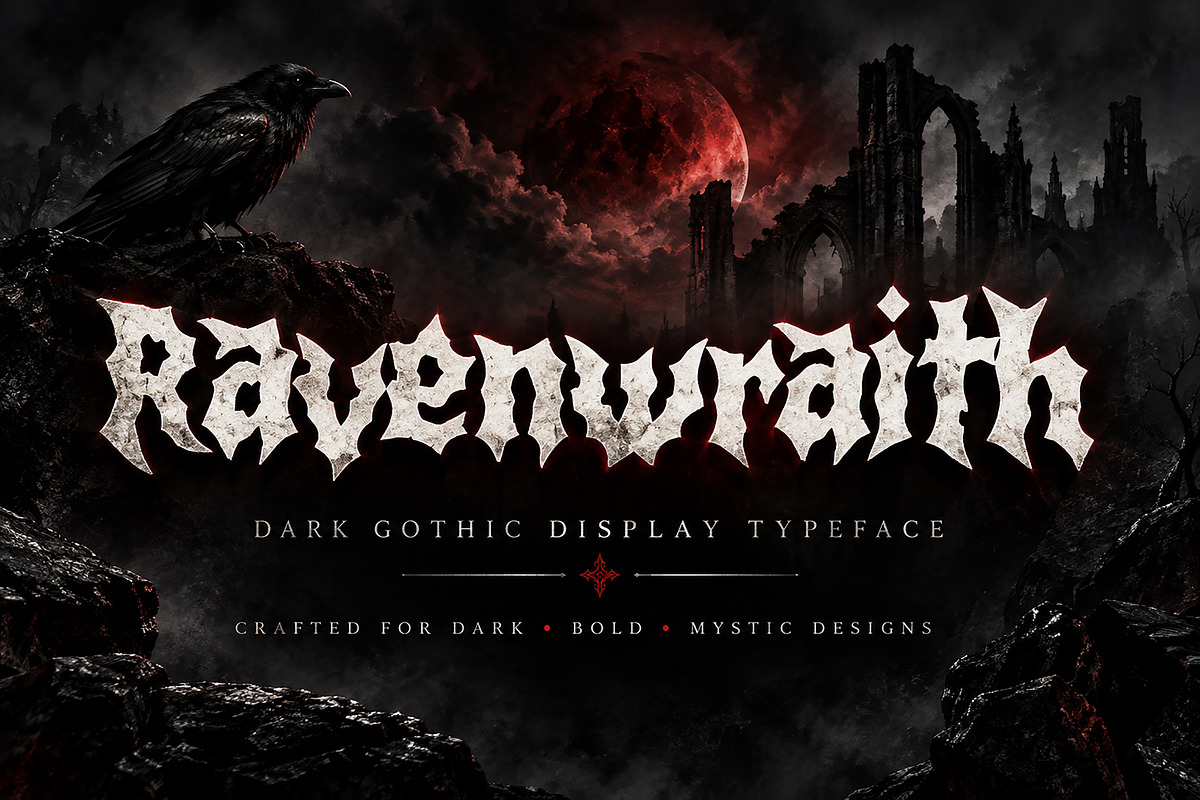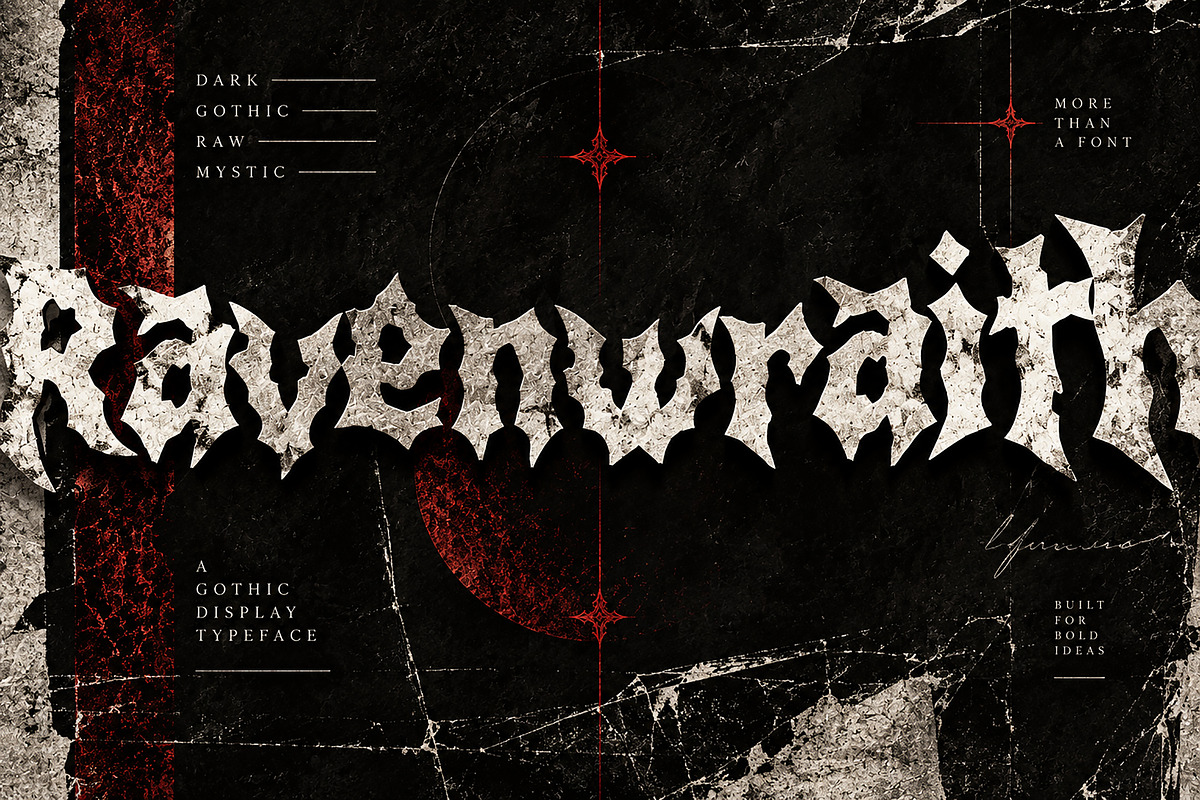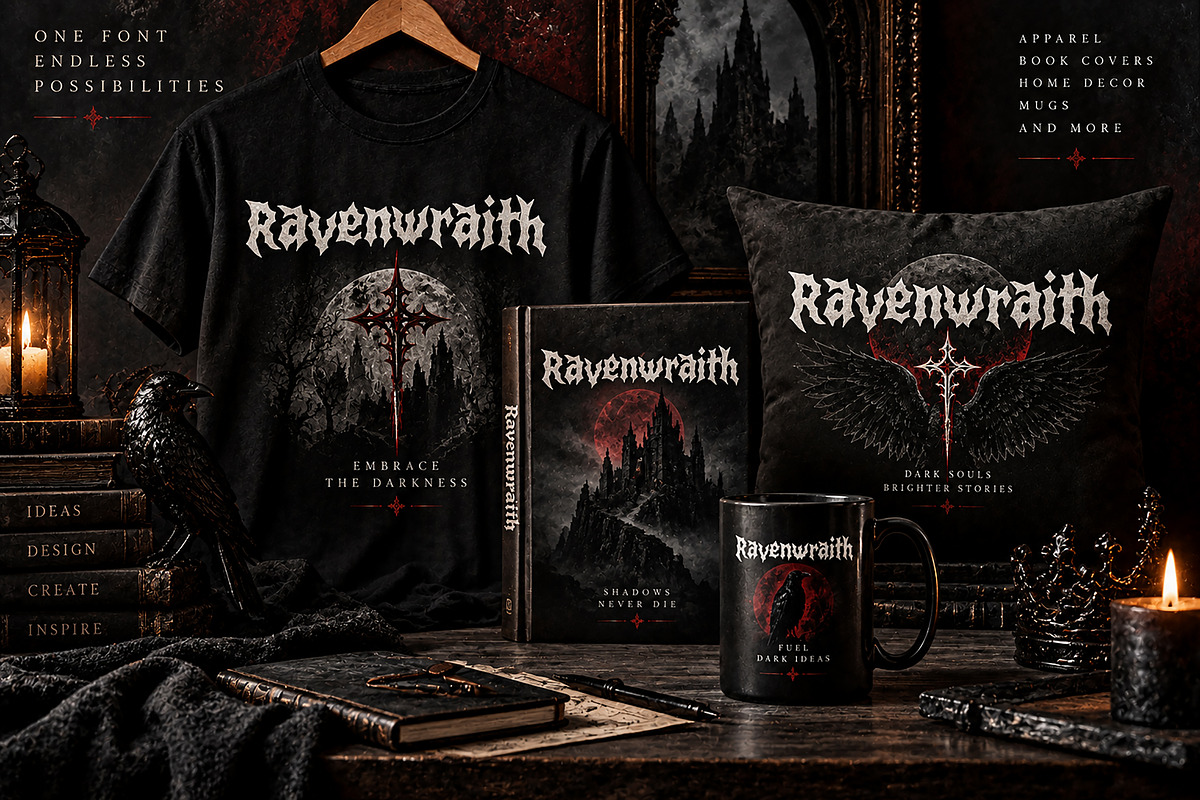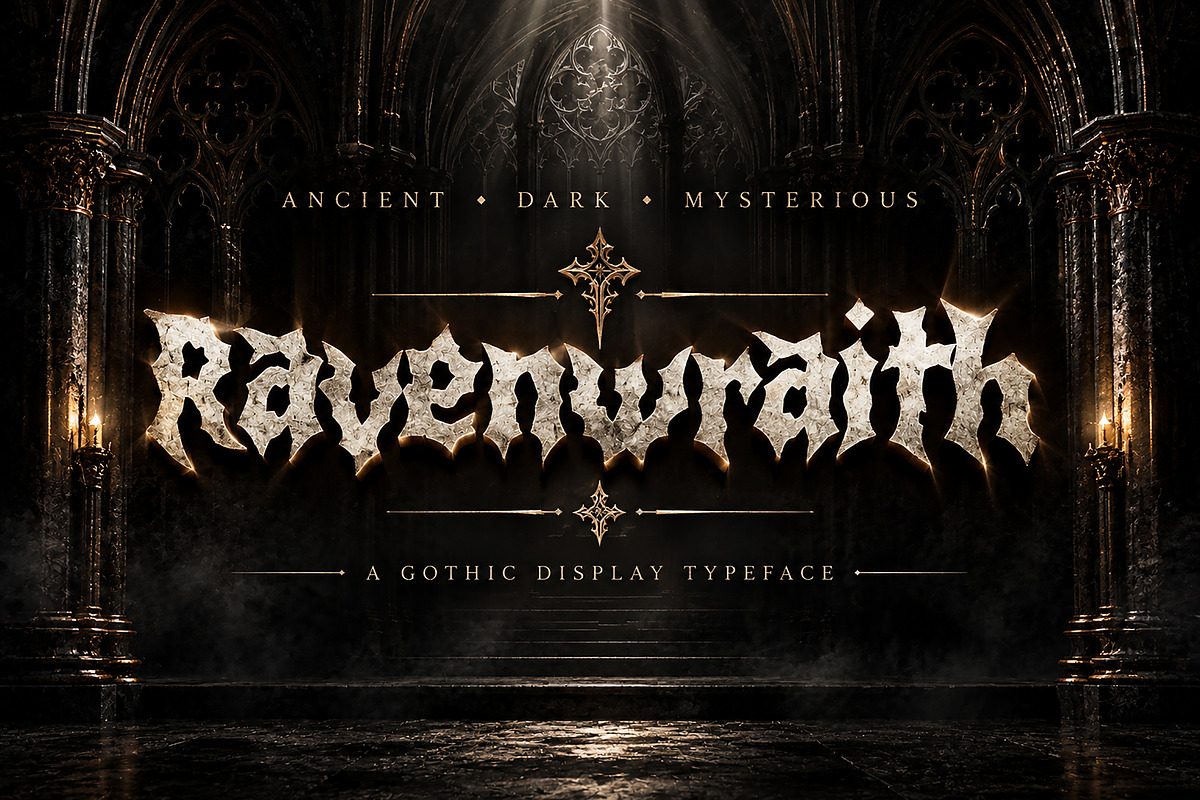
Ravenwraith
Ravenwraith — Dark Gothic Display Typeface
Ravenwraith is a bold and mysterious Gothic display typeface inspired by dark medieval aesthetics, ancient lettering, and dramatic blackletter forms.
With its sharp edges, dramatic silhouettes, and distressed character, Ravenwraith is designed to instantly create a powerful dark atmosphere. It works beautifully for projects that need a strong, rebellious, mysterious, or horror-inspired visual identity.
Perfect for creating striking logos, branding, posters, album artwork, book covers, T-shirt designs, merchandise, packaging, labels, invitations, social media graphics, headlines, and other creative display designs.
Ravenwraith is especially suitable for Gothic, horror, metal, occult-inspired, medieval, Halloween, dark fantasy, alternative, tattoo, and underground-themed projects.
Whether you're designing a powerful brand identity or creating artwork with a dark and unforgettable mood, Ravenwraith brings a distinctive Gothic presence to your typography.
Bold Gothic / Blackletter-inspired design
Dramatic and highly distinctive letterforms
Perfect for large display typography
Ideal for logos, headlines, posters, and branding
Suitable for print and digital design projects
Great for apparel and merchandise designs
Works beautifully with dark, medieval, horror, and alternative aesthetics
Ravenwraith is designed primarily as a display font, making it especially effective when used at larger sizes where its distinctive Gothic details can stand out.